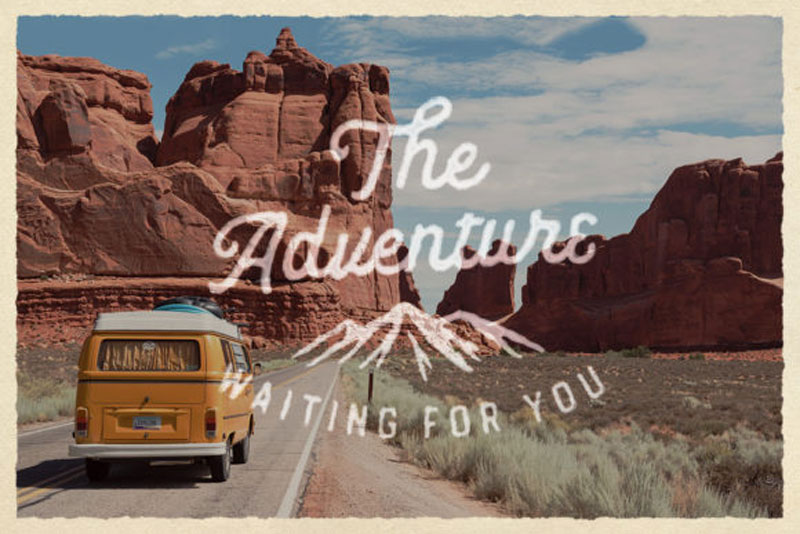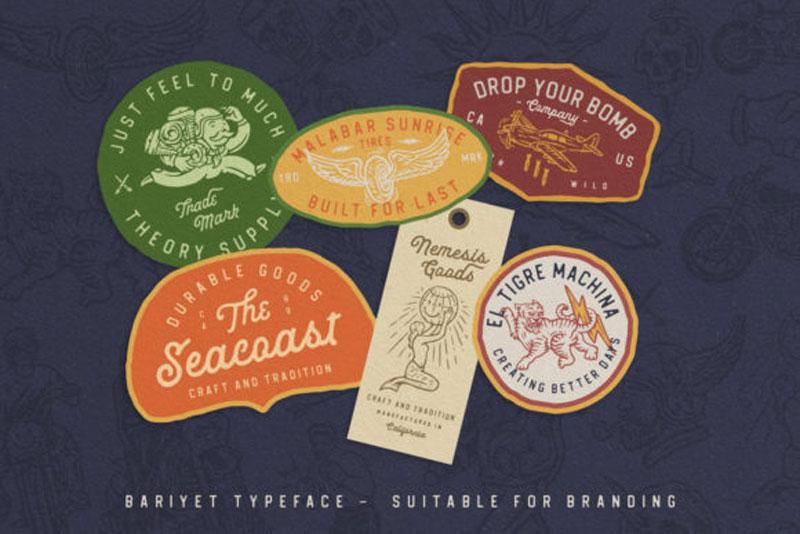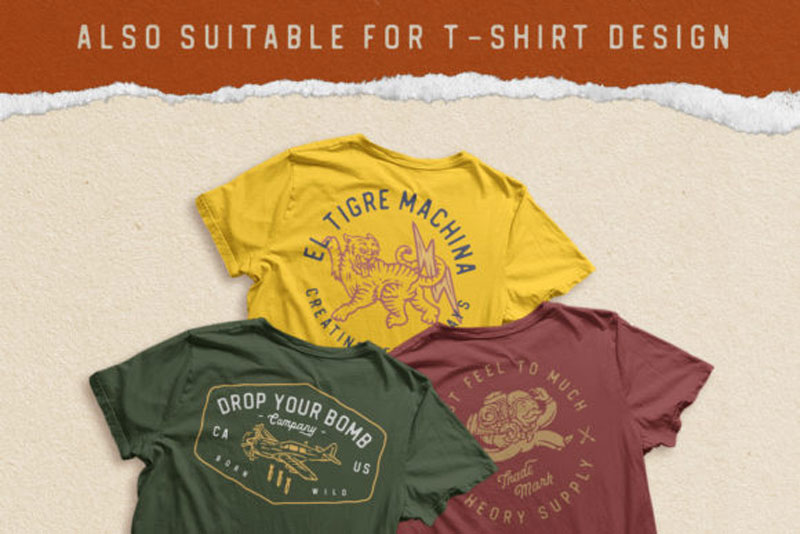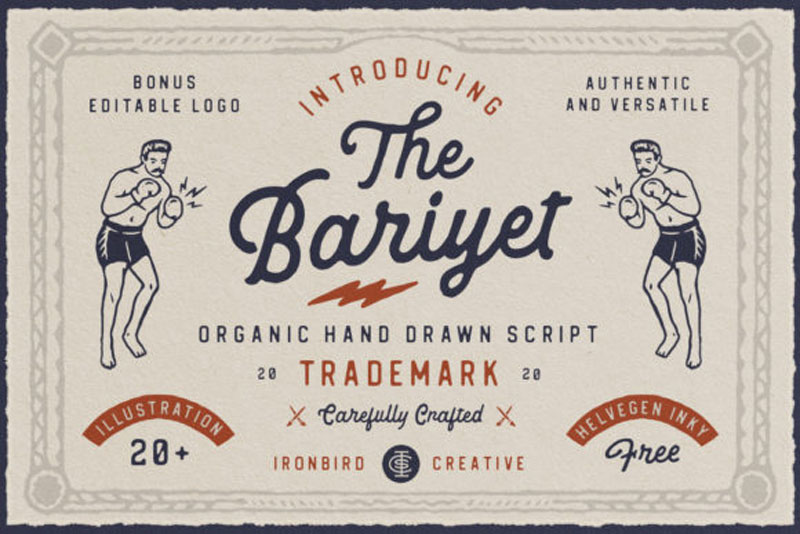
The Bariyet Font
Introducing The Bariyet Font. The Bariyet feels playfully nostalgic and delivers an incredible vintage aesthetic. Use this handwritten font to add that special retro touch to any design idea you can think of. Also checkout Jacmax Font.
• Uppercase and Lowercase letters
• Numbering and Punctuations
• Multilingual Support